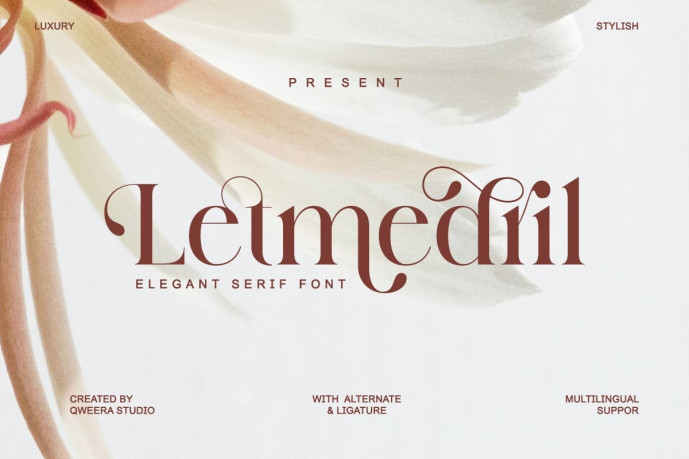
Lemedril – Modern Serif Font
Designer: IdhhamCholid
Lemedril – Modern Serif Font is a modern elegant serif typeface designed for timeless sophistication. Its soft curves, artistic ligatures, and confident shapes make it ideal for wedding invitations, logos, fashion editorials, and luxury packaging. This typeface captures elegance in every letter — perfect for projects that seek beauty, balance, and premium expression.
Features:
• Regular & Italic
• Uppercase & Lowercase Letters
• Alternates & Ligatures
• Multilingual Support
Perfect For: Luxury branding, wedding design, magazine titles, and elegant packaging.